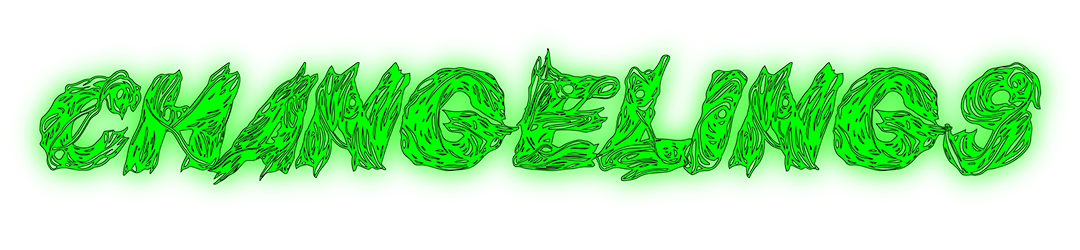
Changelings Update #8 - New Font and New Styles!
That said, Ewing Julian won the day, and after choosing I decided to experiment with some new styles.
I'm partial to the last one here on the list and the glow. I'm thrilled to create the enamel pins with this font. I think it'll look pretty stellar, shiny on metal.
What do you think?